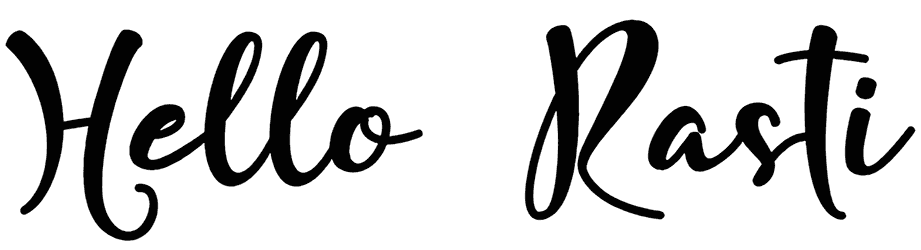
Hello Rasti Font
Do you want to create a handwritten text without holding a pen? So, Hello Rasti can bring you to your goal. This cursive font, which has a masterful twist, can invite your viewer to a humane and friendly atmosphere and establish a close relationship with them.
So, it is usually seen where humans are on both sides of the case, and there is no machine communication. That’s why it works so well for wedding cards, letters, and invitations.